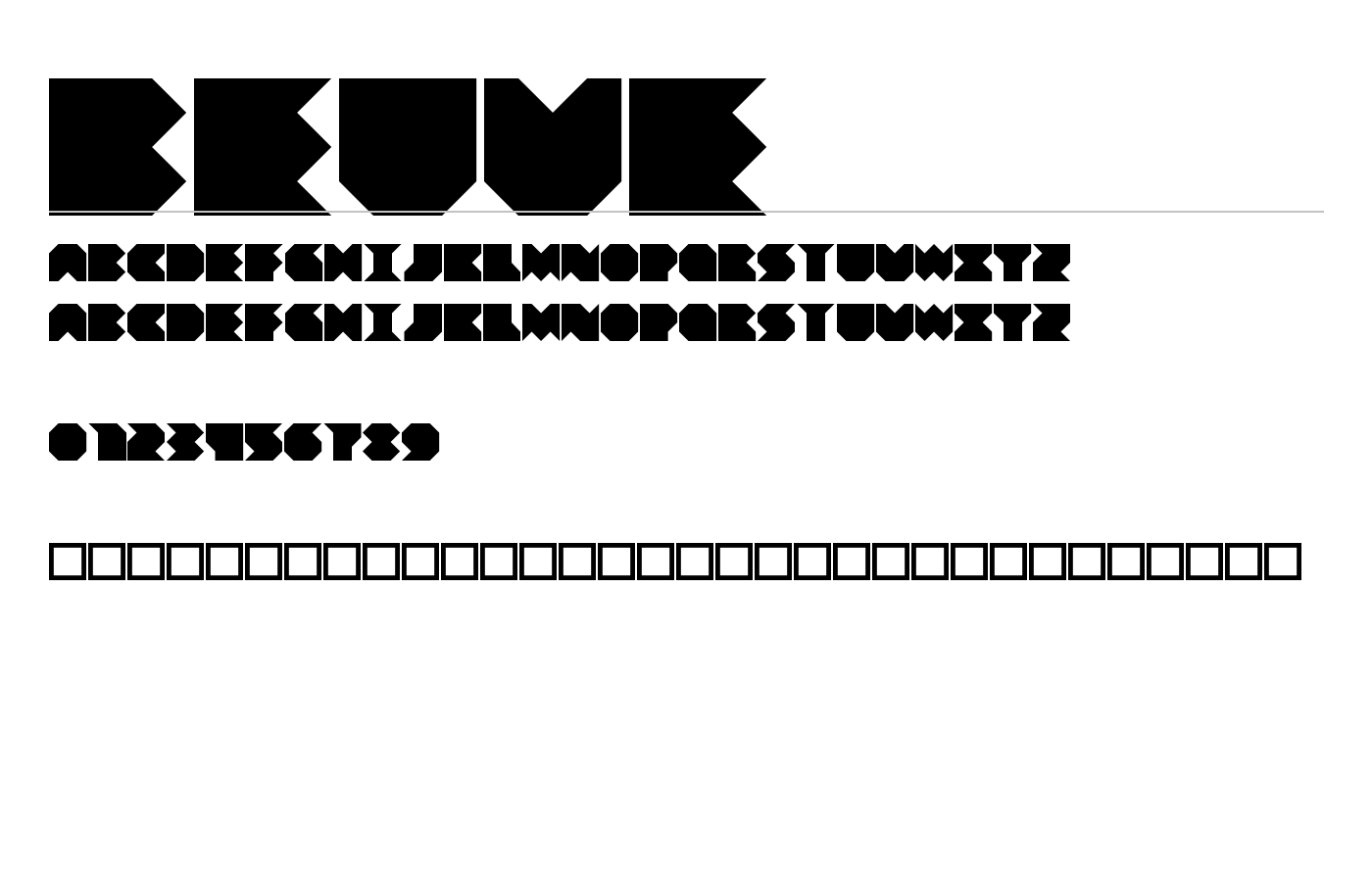
Beuve is a bold, geometric display font characterized by its heavy weight and sharp, angular shapes that create a strong, futuristic feel. Its tightly spaced, all-uppercase letterforms with solid, block-like construction make it ideal for striking headlines, logos, or branding where a modern, impactful statement is needed. This font works best in large sizes where its unique, edgy style can truly stand out and capture attention.
Beuve Font